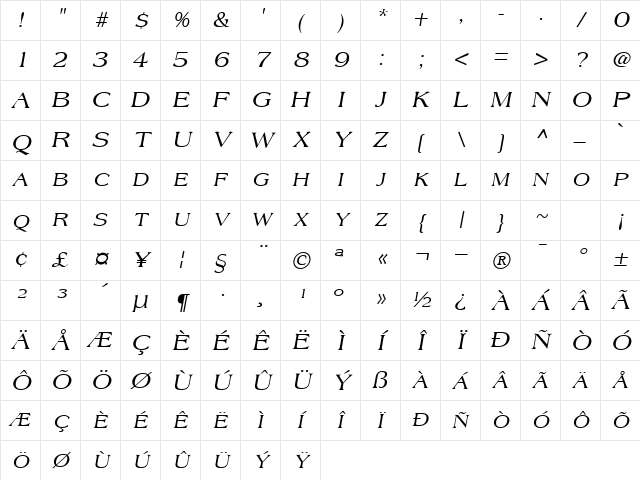
AmalcanExpert Oblique
AmalcanExpert Family
Design Context for AmalcanExpert
AmalcanExpert is a composed and adaptable typeface that performs quietly and consistently across a wide range of design contexts. The slanted form adds forward momentum and visual energy.
Pro Tip: Use AmalcanExpert for emphasis, pull quotes, and subheadings where its slanted energy can add rhythm to the layout.